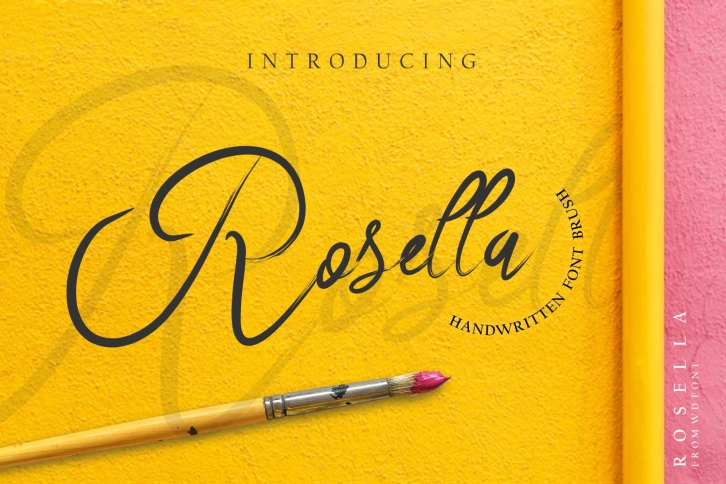
Rosella is a beautiful font that was designed by wdfont. It's a great choice for designers and creatives who need such a font. It was released on December 21, 2018 and the file size is 8.9 MB. Rosella may give a more youthful, expressive and casual look to your project. It is a very beautiful, refined, elegant, and high-quality font.